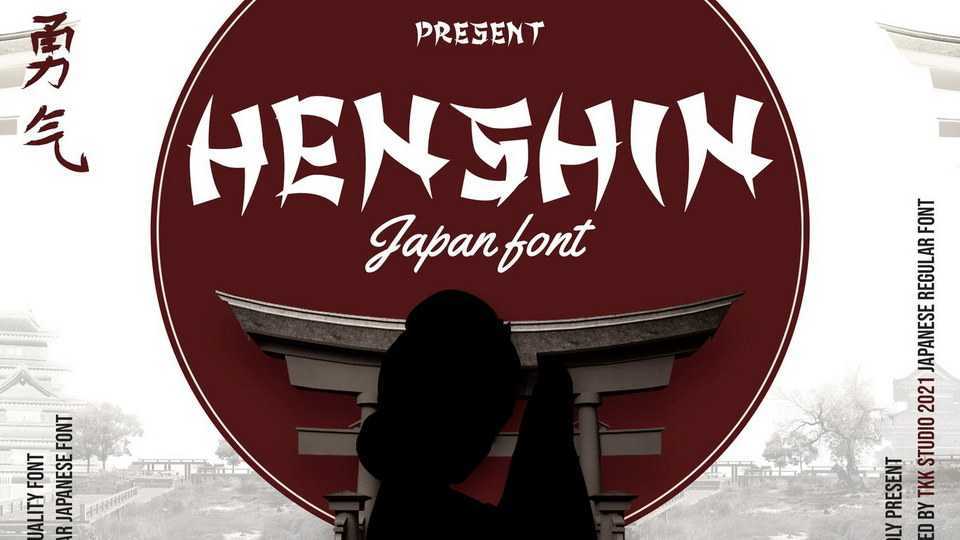
Download Henshin font, a faux Japanese typeface. Henshin took katakana shape, and take it to the modern fast world. With cut out on the inner connection, emphasize the fast and full action world we’re facing.